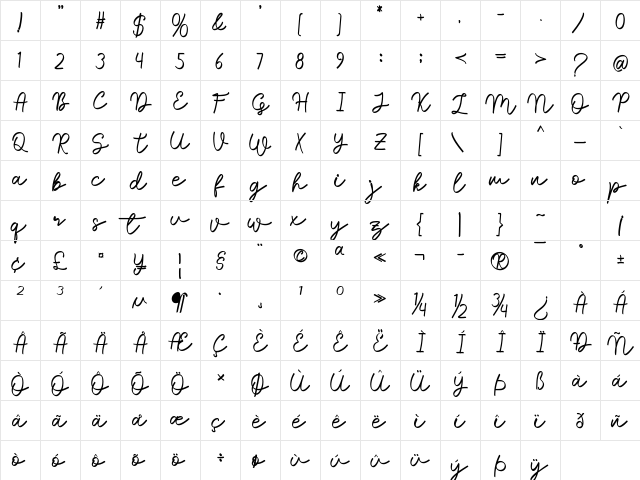
Sale Maker Script Script
| Style | Script |
| Designer | Bill |
Design Context for Sale Maker Script Typeface
Sale Maker Script brings a calligraphic fluidity to the page — its connecting strokes and expressive curves give it an unmistakably human quality.
Font Pairing: Combine Sale Maker Script with a simple geometric sans for maximum contrast — the tension between flowing curves and clean structure is a classic typographic pairing.
Pro Tip: Pair Sale Maker Script with a clean sans-serif for supporting text. The contrast between fluid script and geometric structure creates an elegant typographic hierarchy.